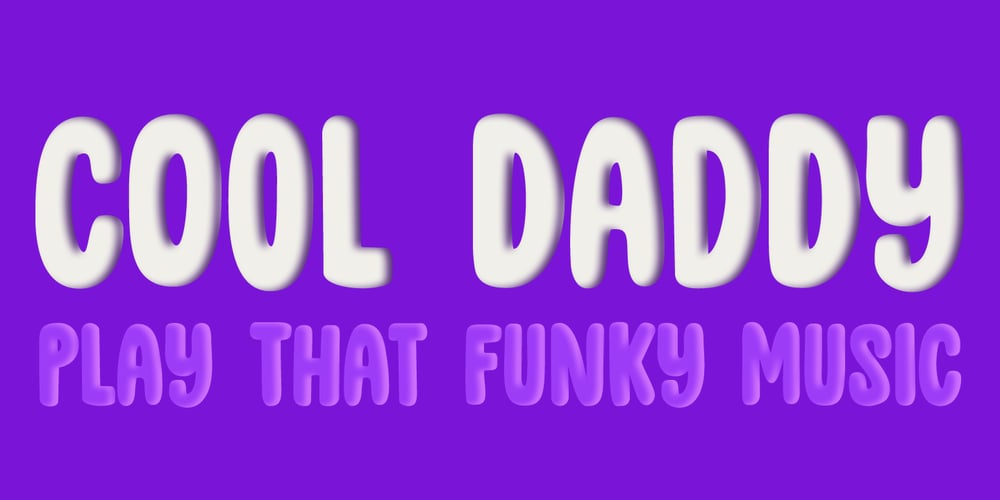
Cool Daddy Font Family was designed by David Kerkhoff and published by Hanoded. Cool Daddy contains 4 styles and family package options. It’s a brand new year, but I have been going back in time. To the seventies to be precise. A ‘bubblegum’ font was on the top of my to-do list, so when it was finally finished, it reminded me of seventies posters. As if by magic, a catchy bassline started playing in my head and before I knew it, Boney M appeared – all dressed up in Purple and singing Daddy Cool. Cool Daddy is a fat, rounded bubblegum font, which will take you back to the decade of moustaches, afros and glitter. This ultra groovy font will funk up your designs 4-sho. So boogie on, take it back to your crib and get down with it. You diggin’?